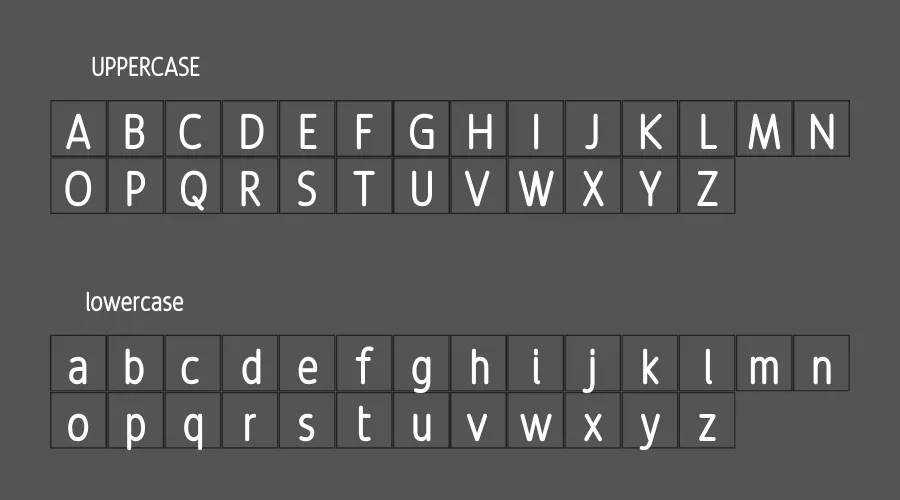
About Revalo Modern Font
The Revalo Modern Font is under the category of the sans serif texture family. It is a perfect choice for highlighting your project character that was developed by two famous typographic designers Adam Hayes and Nick Hayes.
The pairing quality of this font is amazing and can be paired with helvetica font. This lovely font contains unique types of styles and weights such as bold, italic, semi-bold, and regular with outline faces and modern shapes. It supports multiple types of international languages.